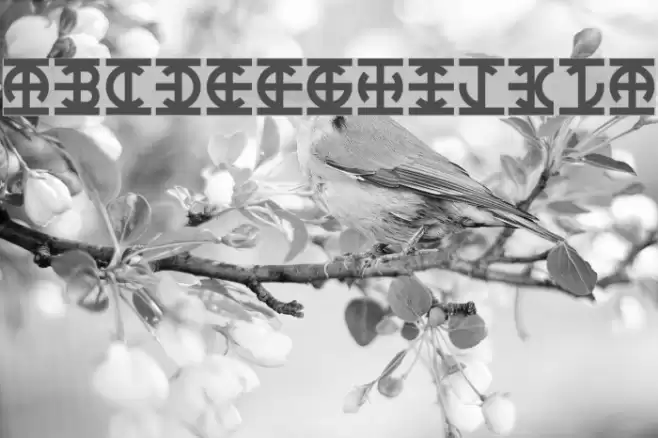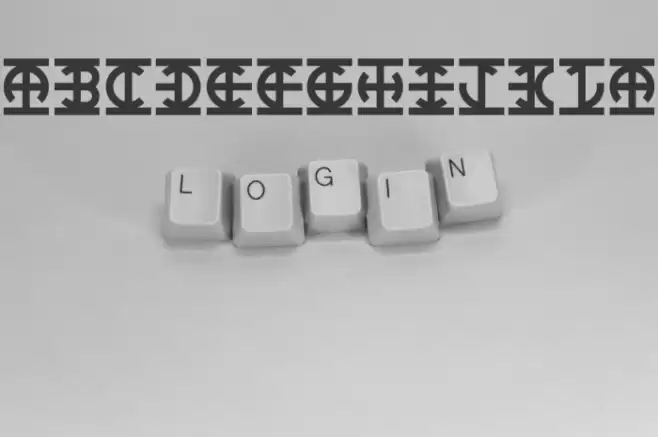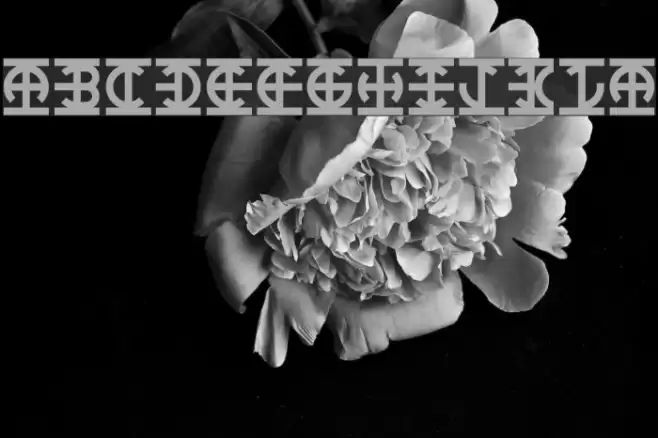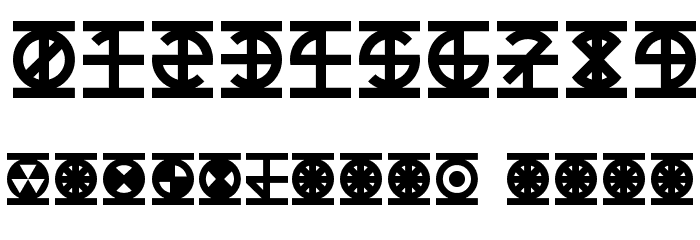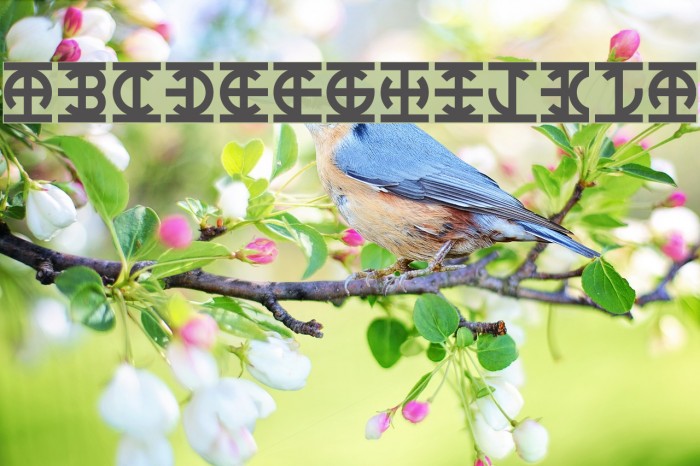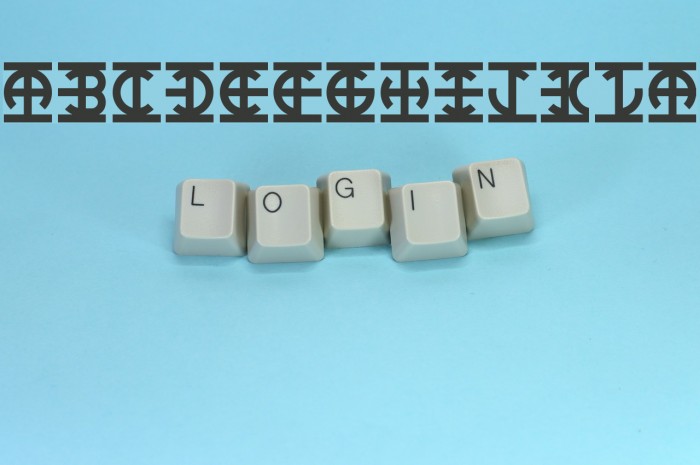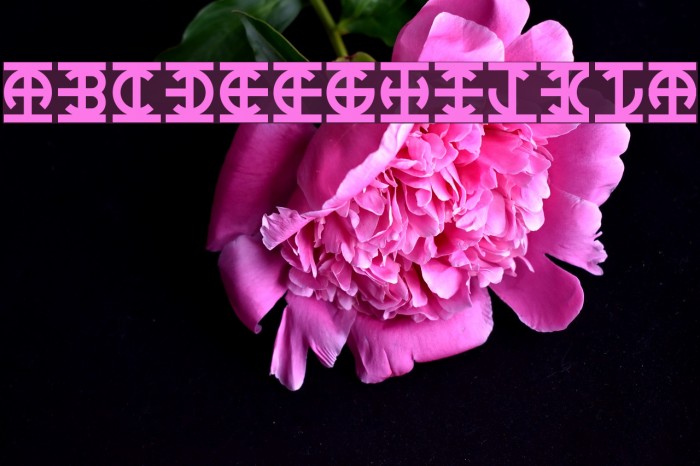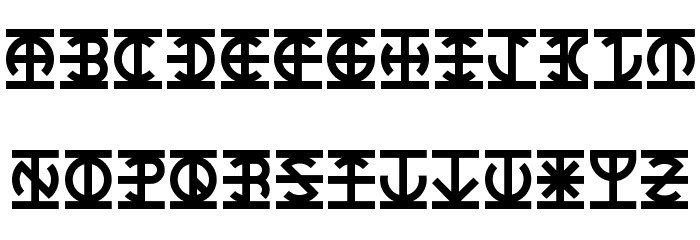
Lantern Font
Lantern Description
This font features a highly decorative and geometric style, characterized by bold, thick strokes and intricate patterns within each character. The design incorporates symmetrical shapes and angular elements, creating a visually striking appearance. Each letter and symbol is crafted with a unique combination of lines and curves, resulting in a font that is both artistic and unconventional. The overall aesthetic is reminiscent of ancient symbols or tribal art, making it stand out in any design project. The font's boldness and complexity suggest a strong visual impact, suitable for creative and expressive uses.
A bold, geometric, and decorative font with intricate patterns and angular elements from Decorative fonts.
- Proposed Projects: Ideal for artistic projects, branding, posters, and any design requiring a unique and bold statement.
- Use Case: Logos, Posters, Artistic projects